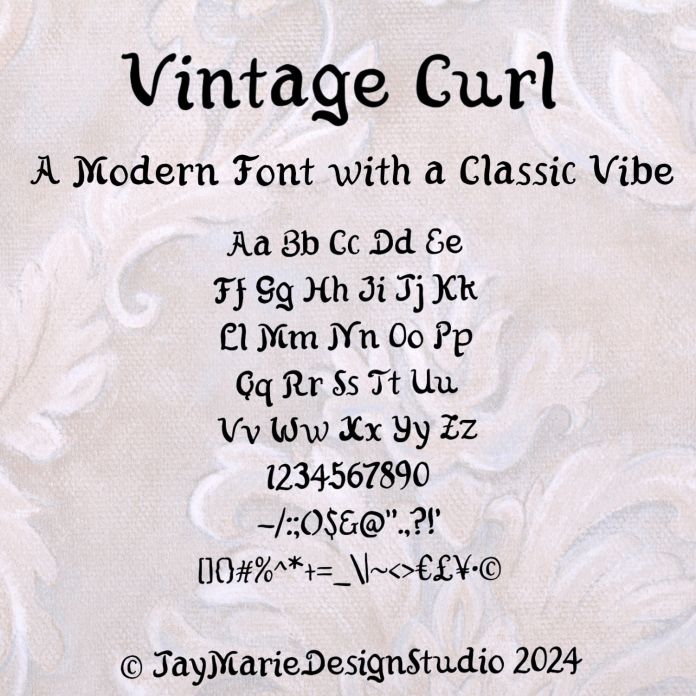
Capture timeless elegance with this Classic Vintage Curl Hand-Drawn Font featuring a Old English-inspired style. Perfect for adding a refined and historical touch to your projects, this font is ideal for invitations, formal announcements, book covers, branding, or any design that calls for sophistication and a touch of nostalgia.
Each character is meticulously hand-drawn to evoke the charm of traditional calligraphy while maintaining a versatile aesthetic. Whether you're crafting custom stationery or designing artwork with a classic twist, this font will elevate your creations with its distinguished appeal.